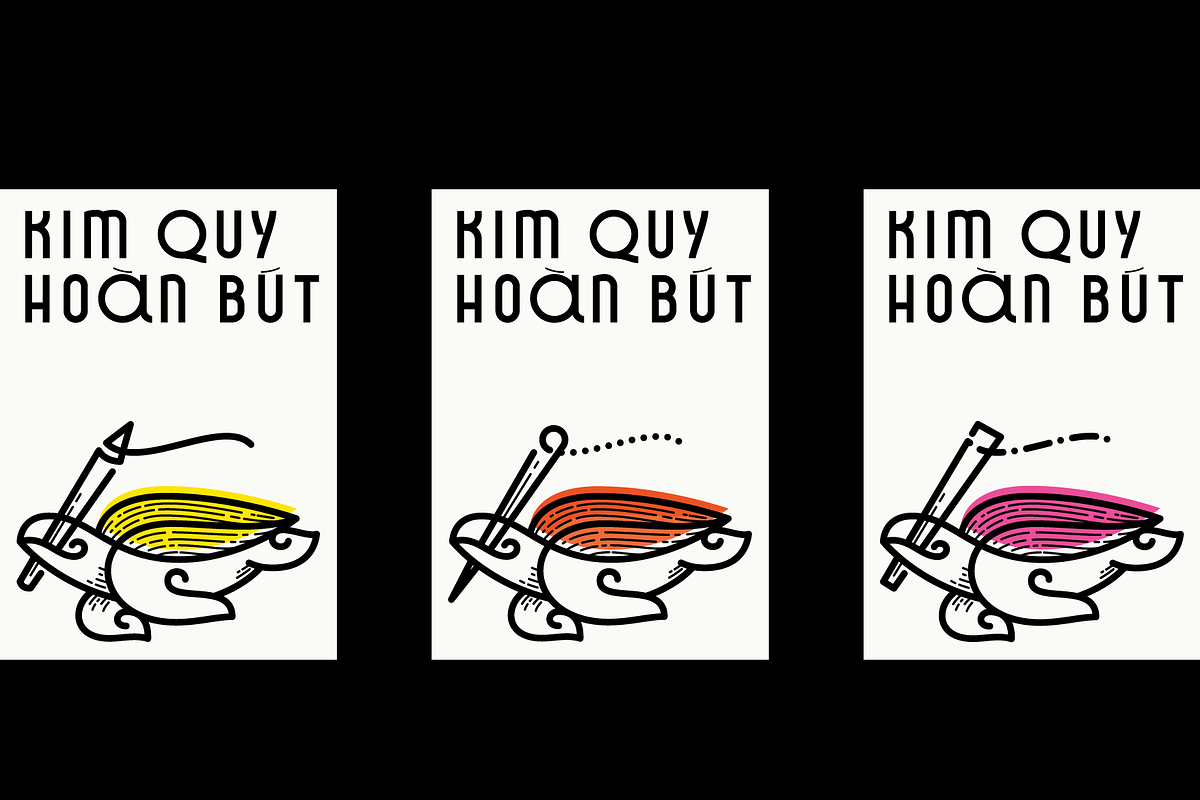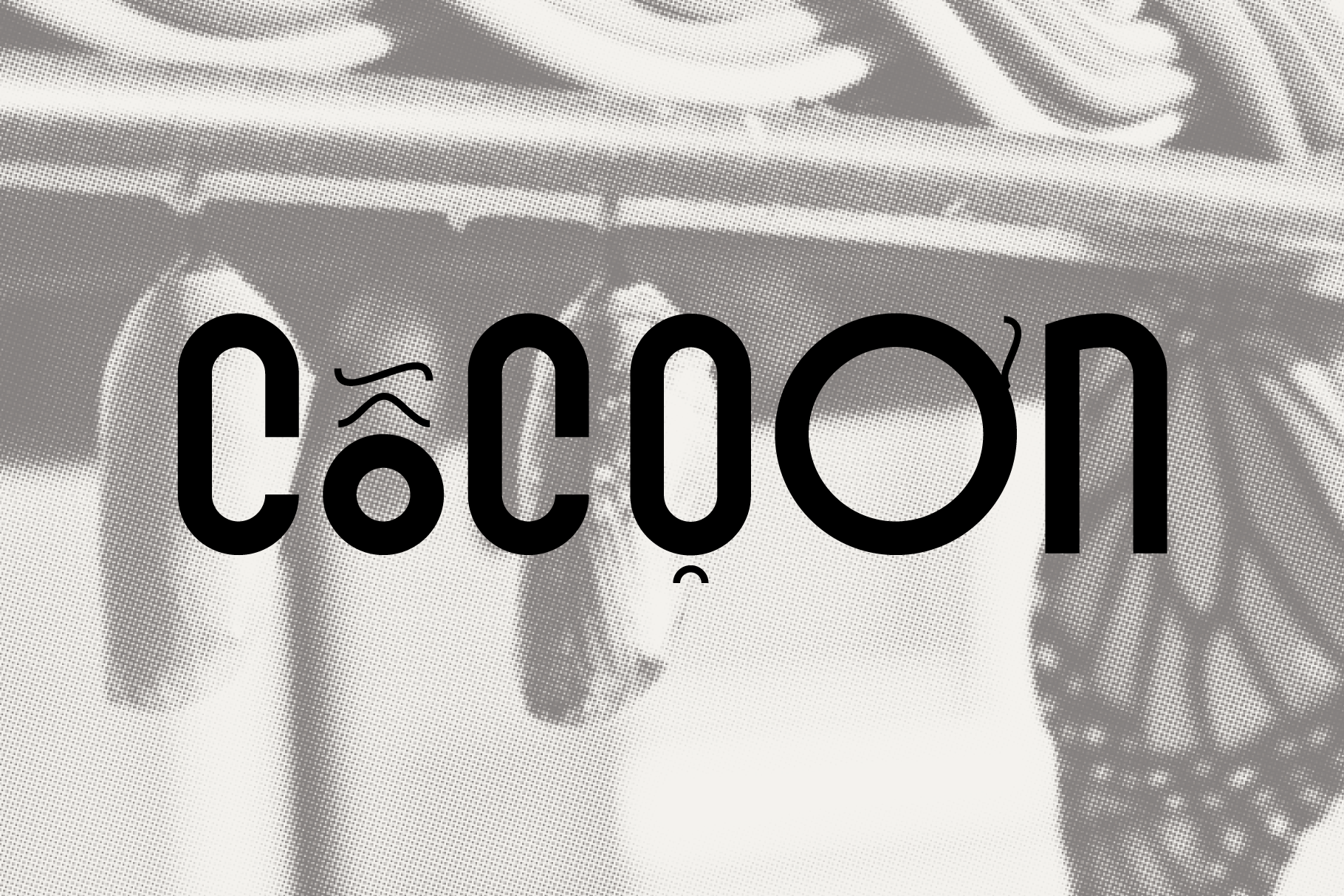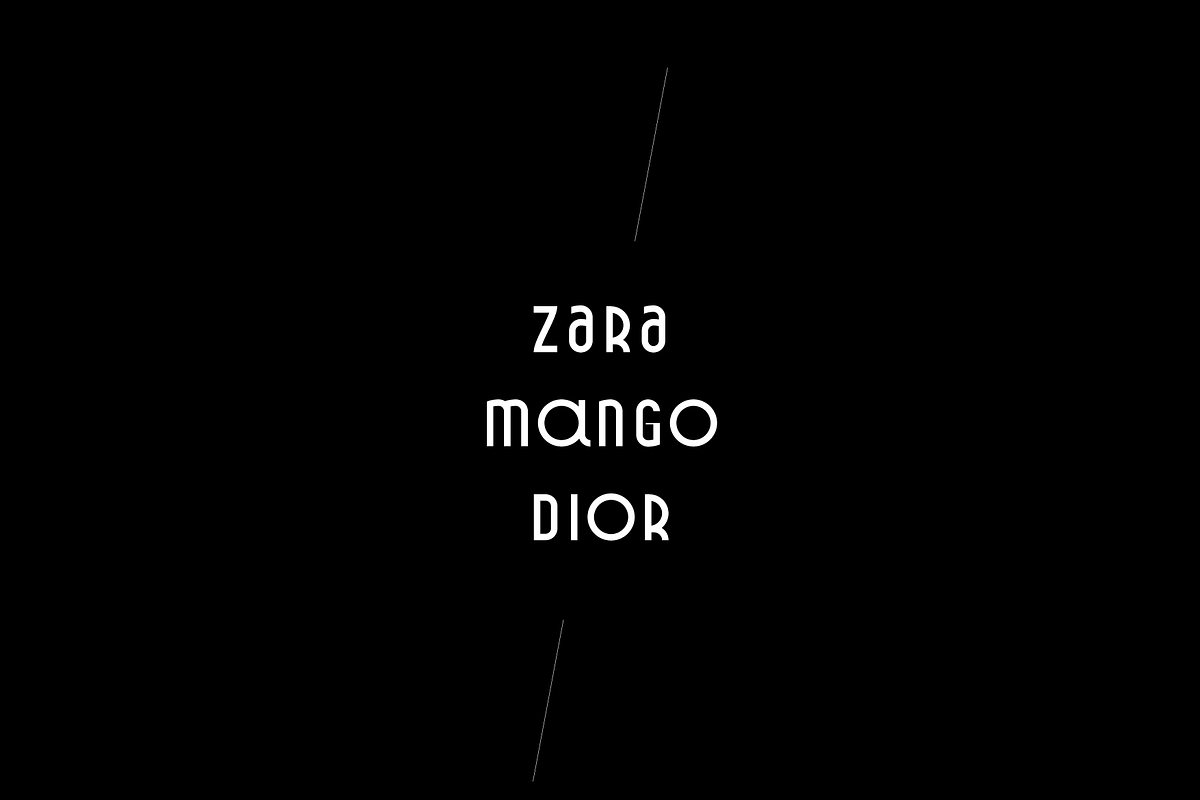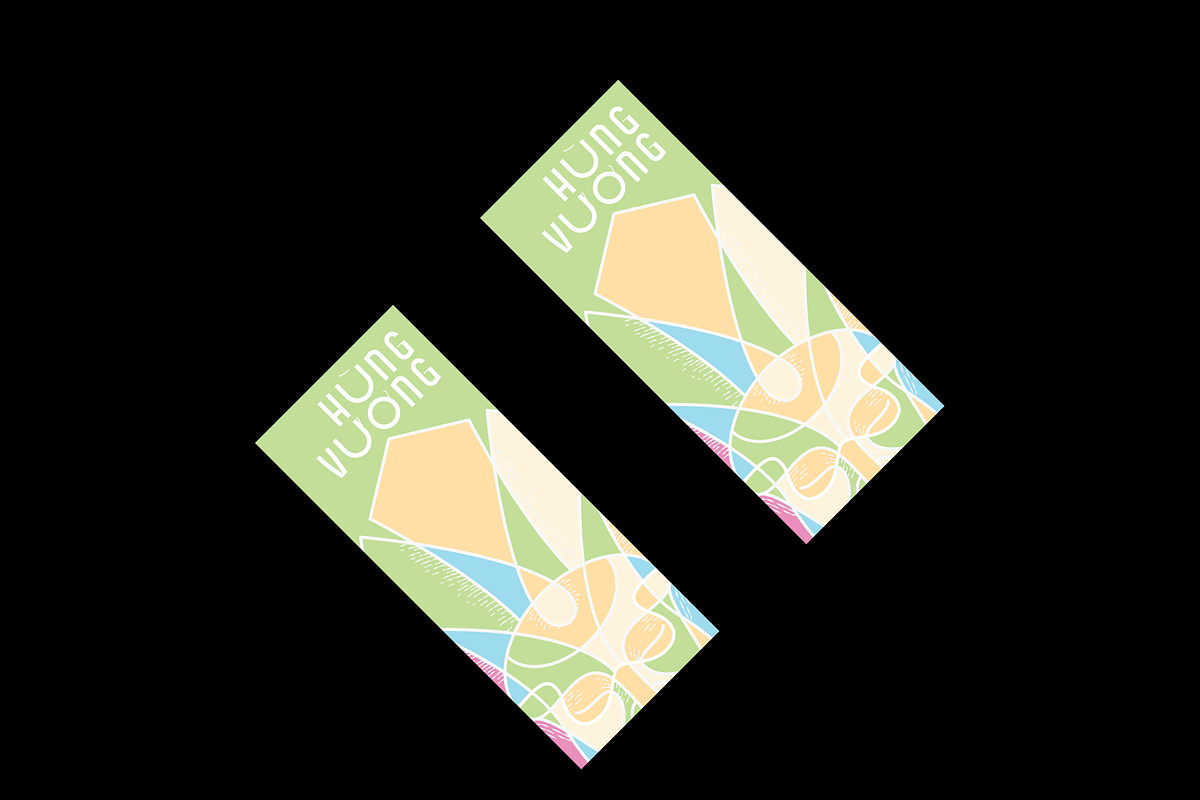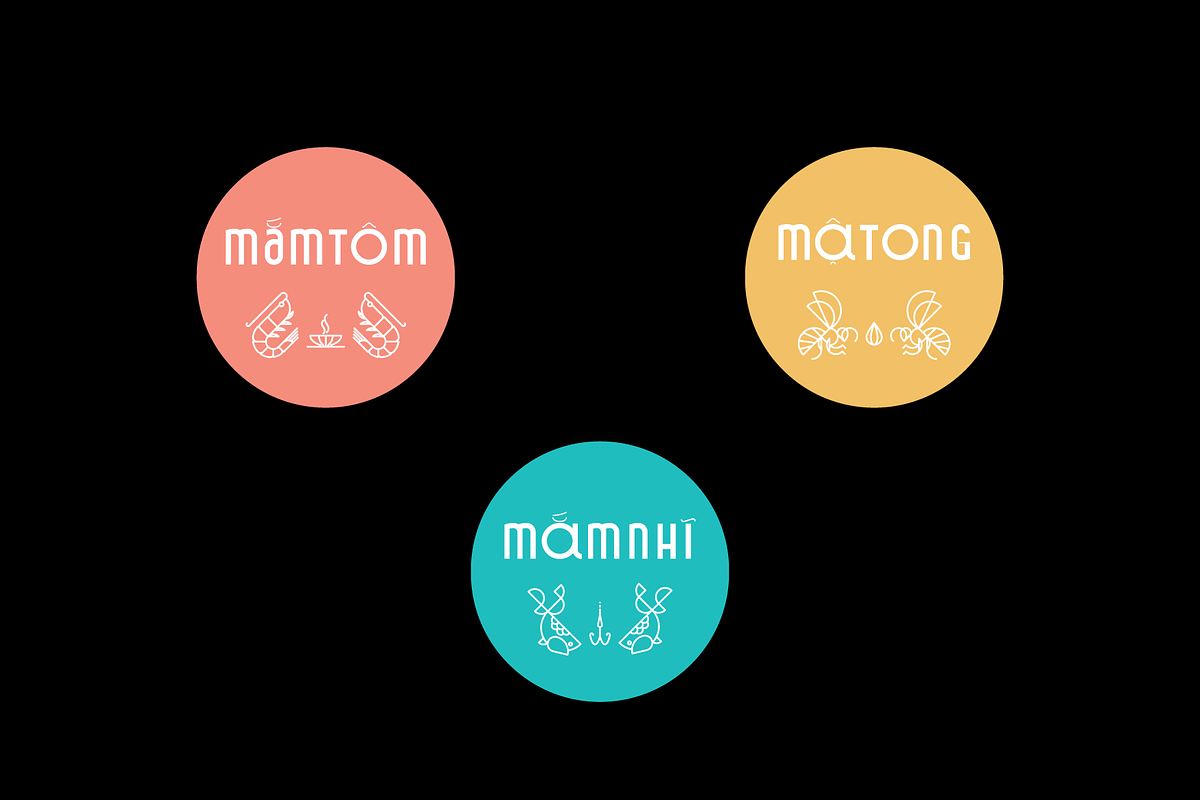
Cocoon / Ken Typeface
Cocoon / Kén Typeface (Vietnamese Font)
Is a geometric Display typeface. Inspired by cocoons, nature and the growth of all things...